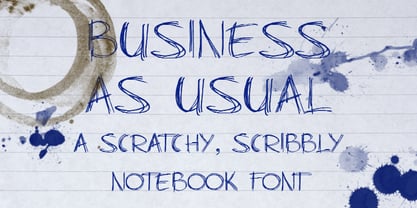
Business As Usual
por Hanoded
La familia tipográfica Business As Usual fue diseñada por David Kerkhoff y publicada por Hanoded. Business As Usual contiene 4 estilos. Más información sobre esta familia
A scratchy, scribbly notebook font. Like someone doodled away at a meeting. Ideal for websites.
Diseñadores: David Kerkhoff
Fundición: Hanoded
Hanoded is run by Dutchman David Kerkhoff. His fonts are a mishmash of styles, as he just creates whatever pops into his head. You will find a lot of brush fonts in his collection, as his favourite tools are brushes and Chinese ink, with cartoon style fonts and script fonts complementing his repertoire. Aside from making fonts, David occasionally guides tours in far-flung places, renovates his '30's house and tries reasoning with his wife and (teenage) kids. Not an easy task!